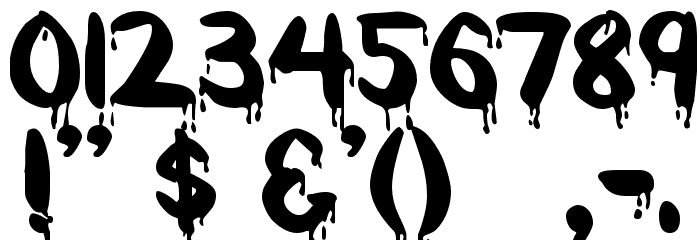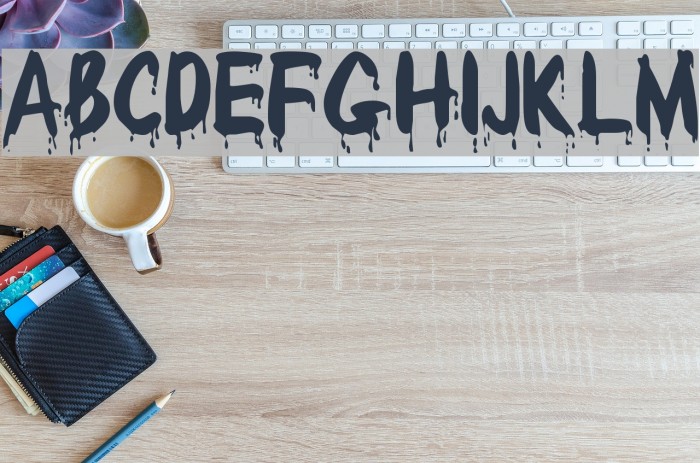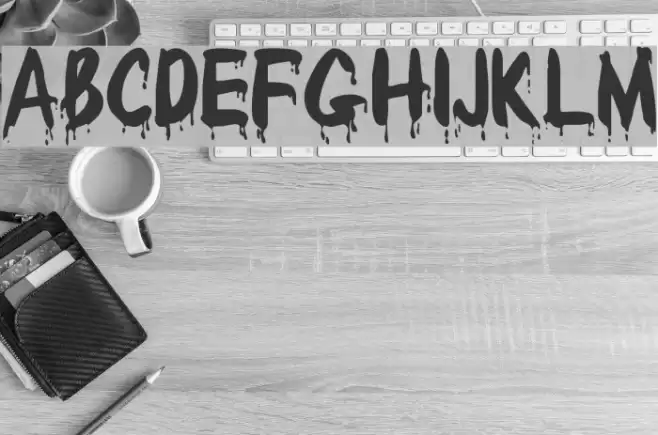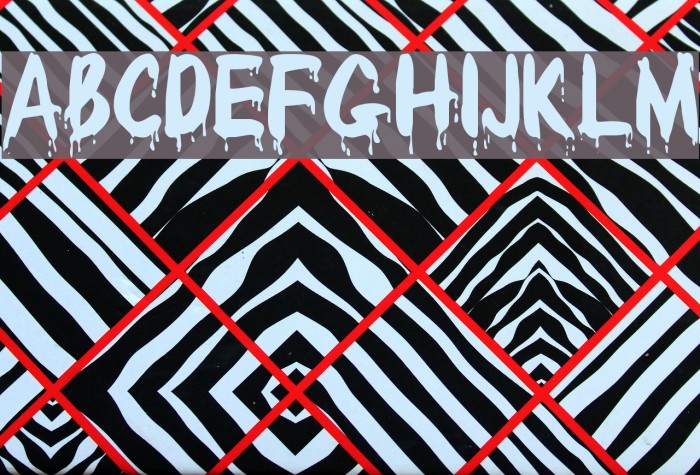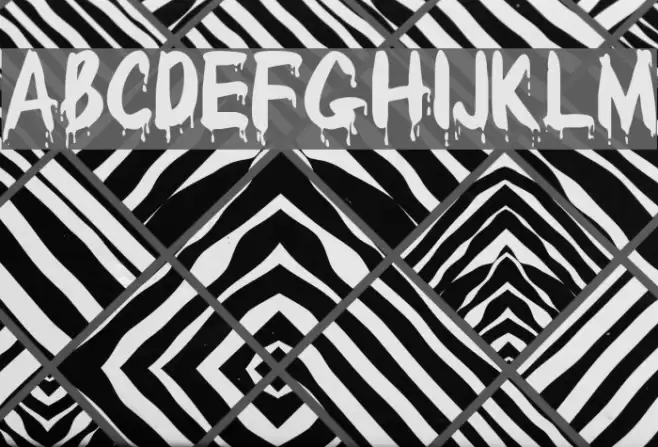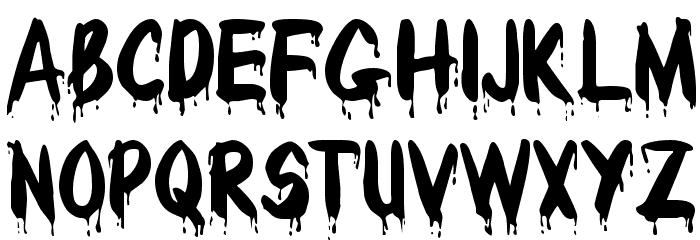
Bloody Font
Bloody Description
This font features a unique and dramatic style, characterized by its dripping effect that mimics the appearance of wet paint or blood. The bold, uppercase letters are designed with a playful yet eerie aesthetic, making it ideal for themes that require a sense of horror or mystery. The characters are evenly spaced, maintaining a consistent flow across the text. The font's distinctive style is perfect for creating eye-catching headlines or thematic designs that need a touch of the macabre. Its decorative nature makes it less suitable for body text but excellent for short, impactful messages.
| Proposed Projects | Ideal for Halloween posters, horror movie titles, themed event invitations, or spooky merchandise designs. |